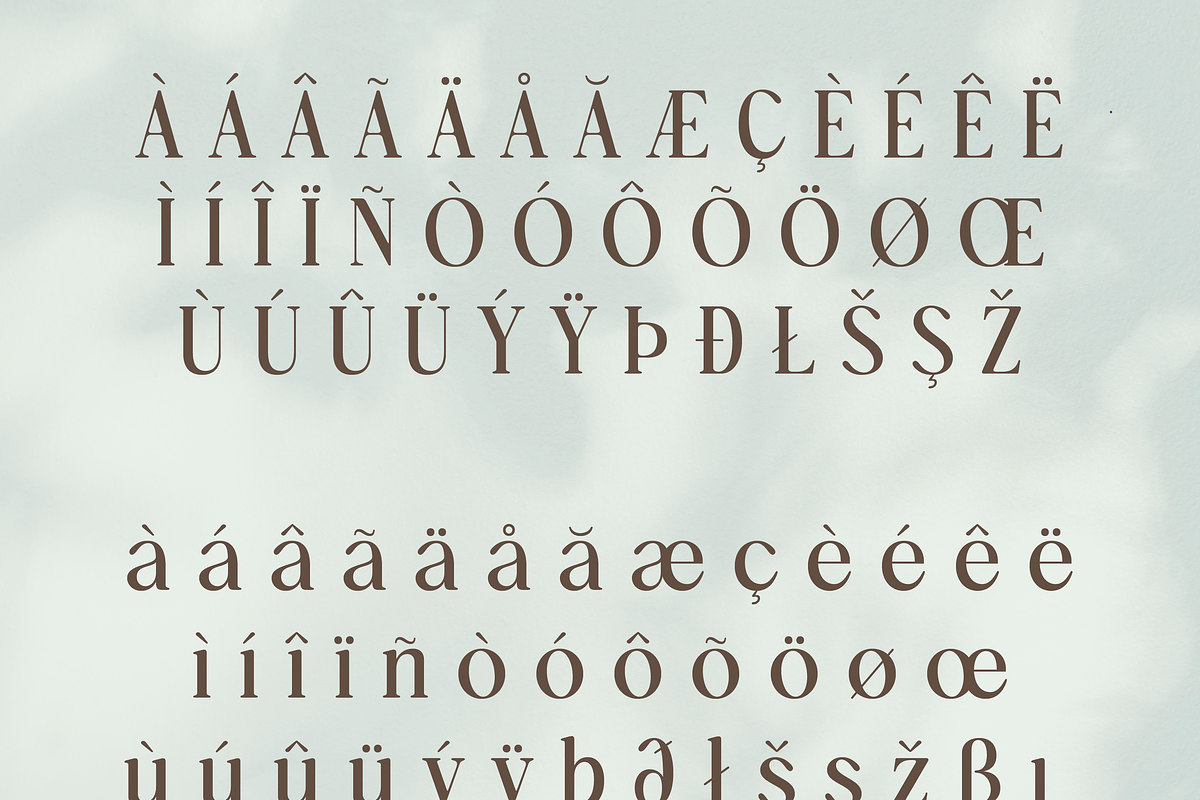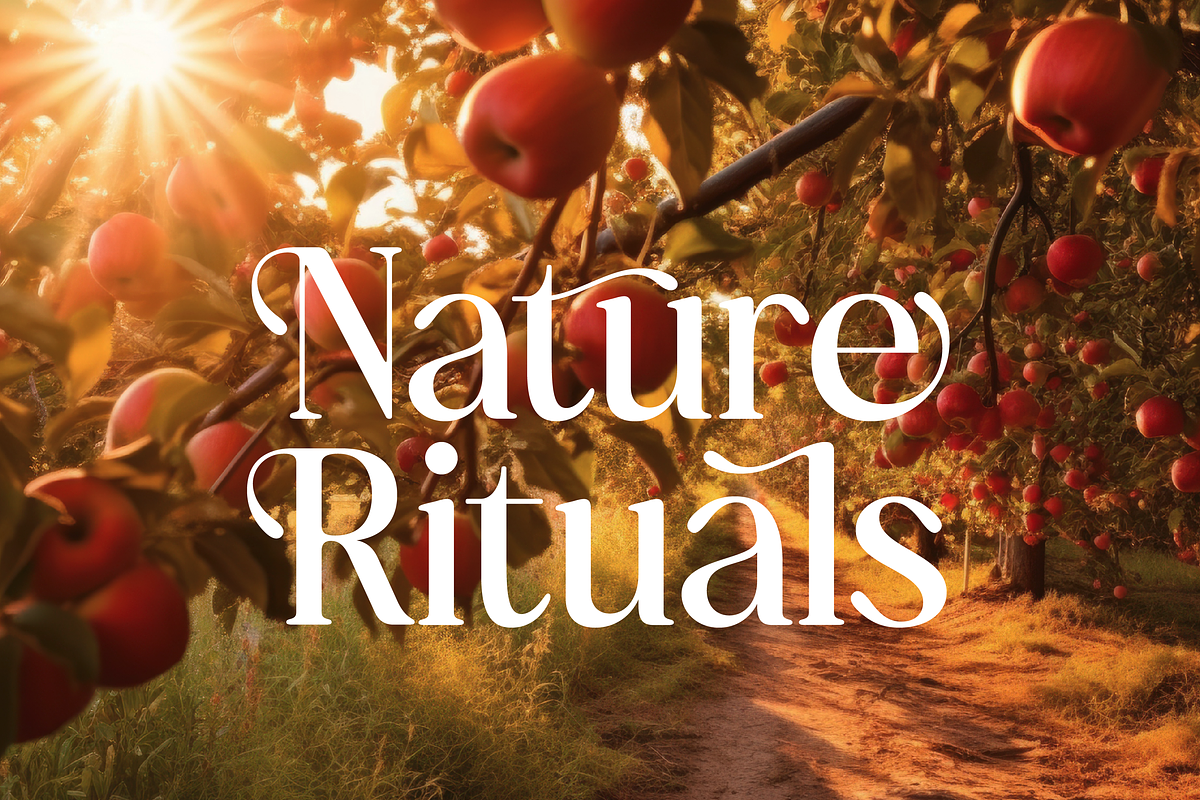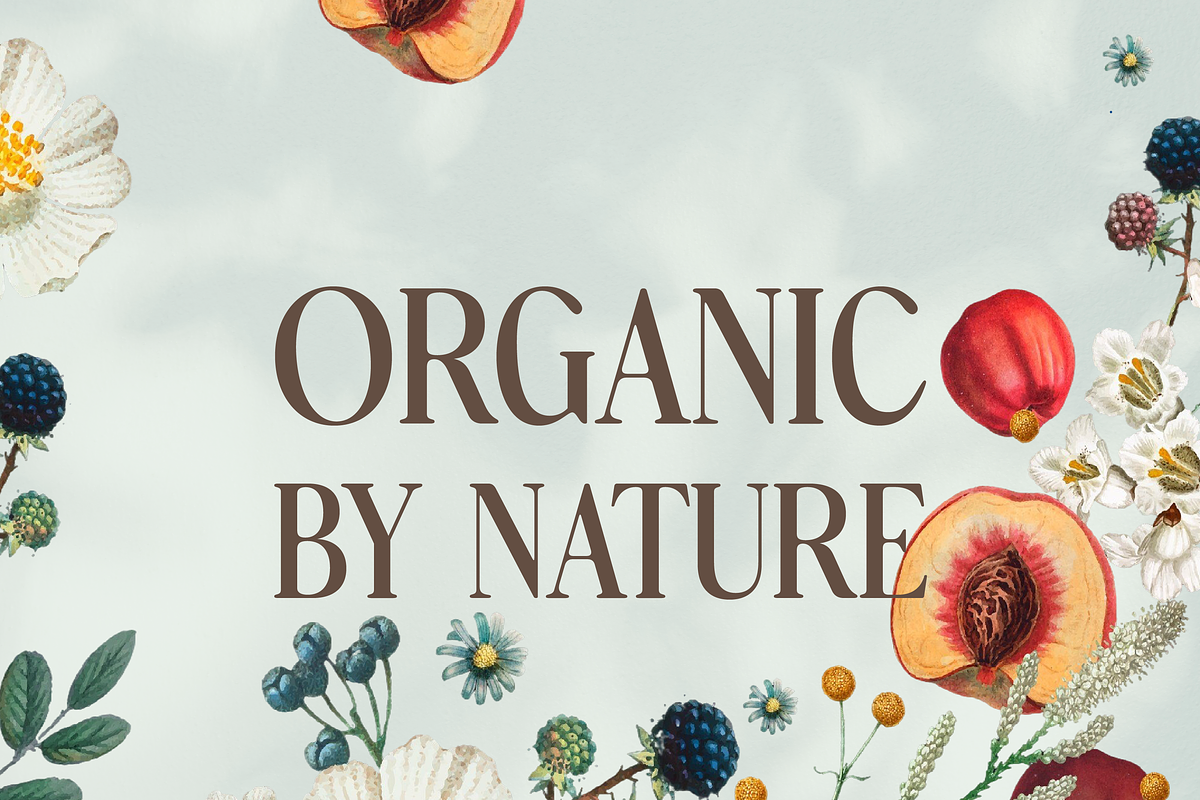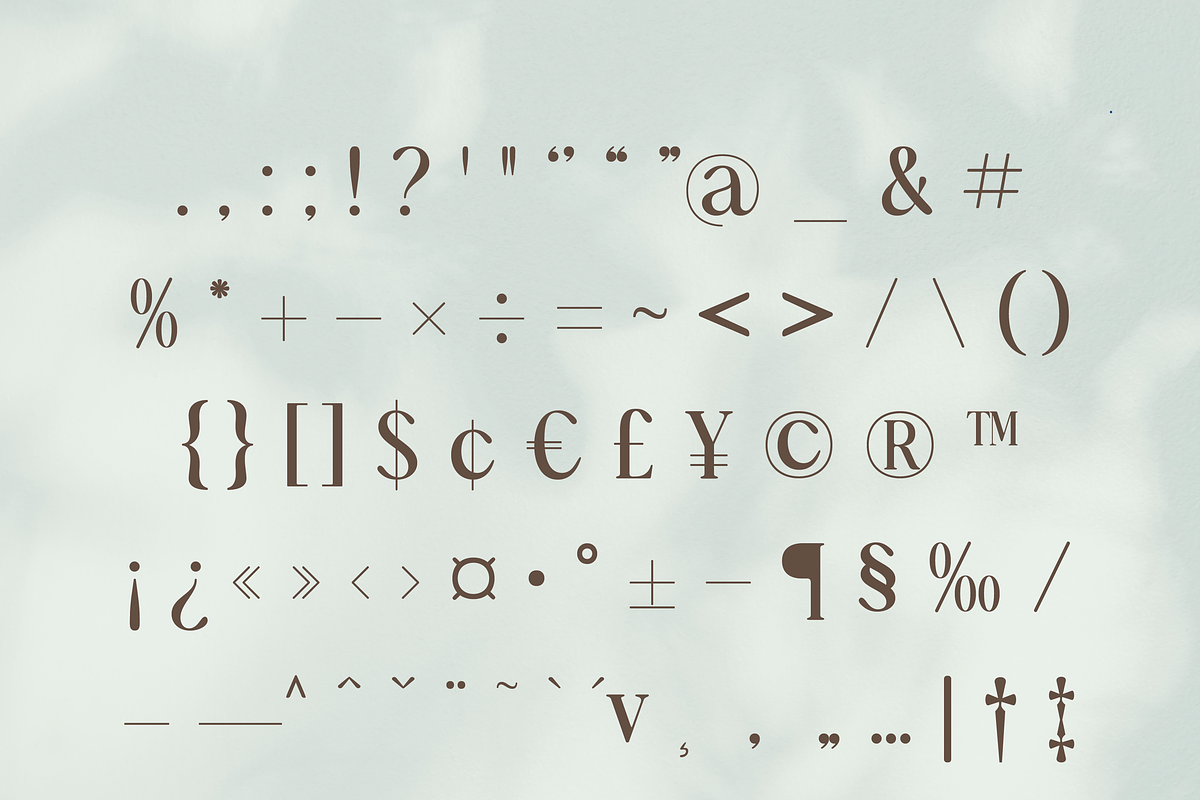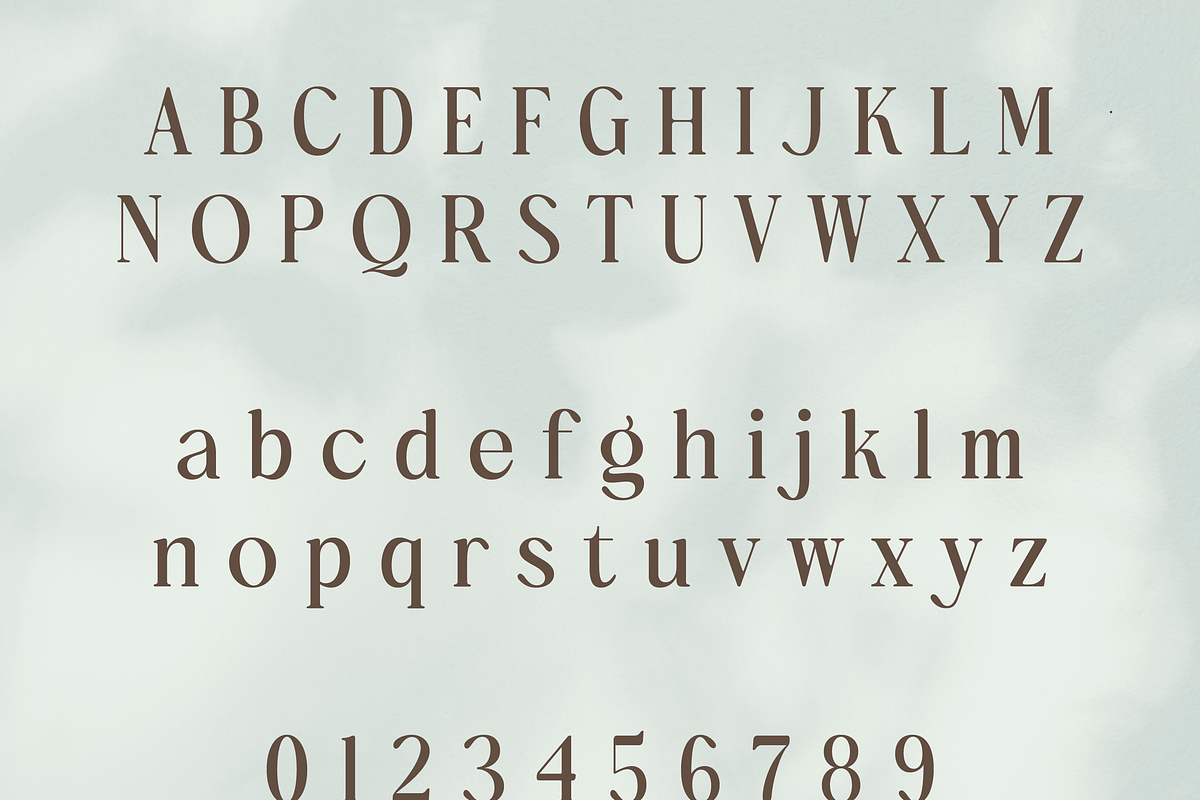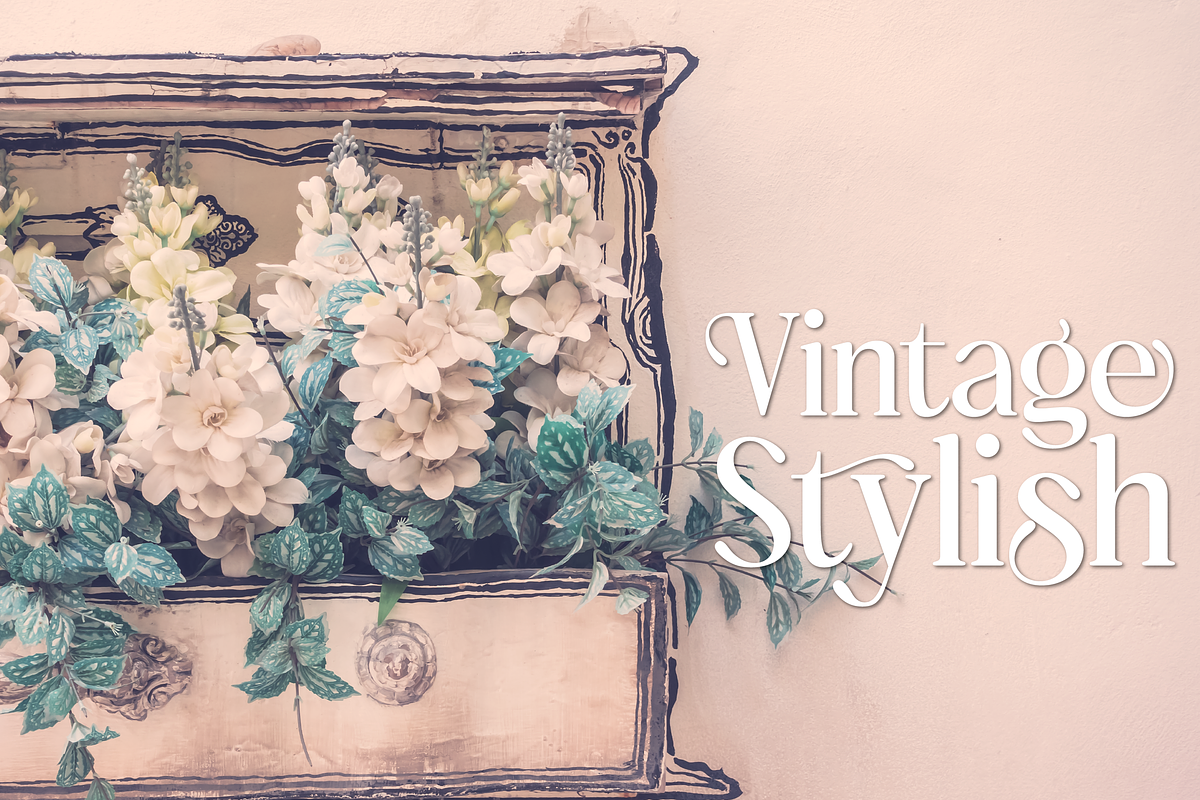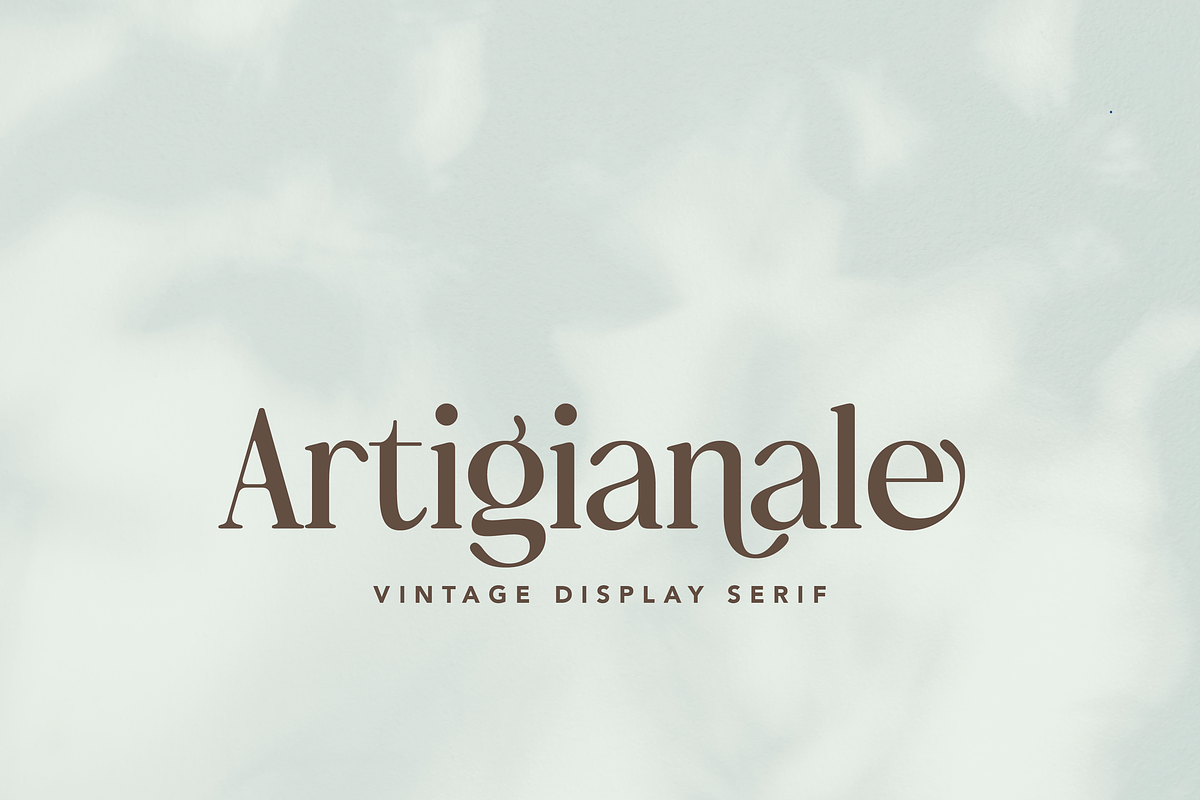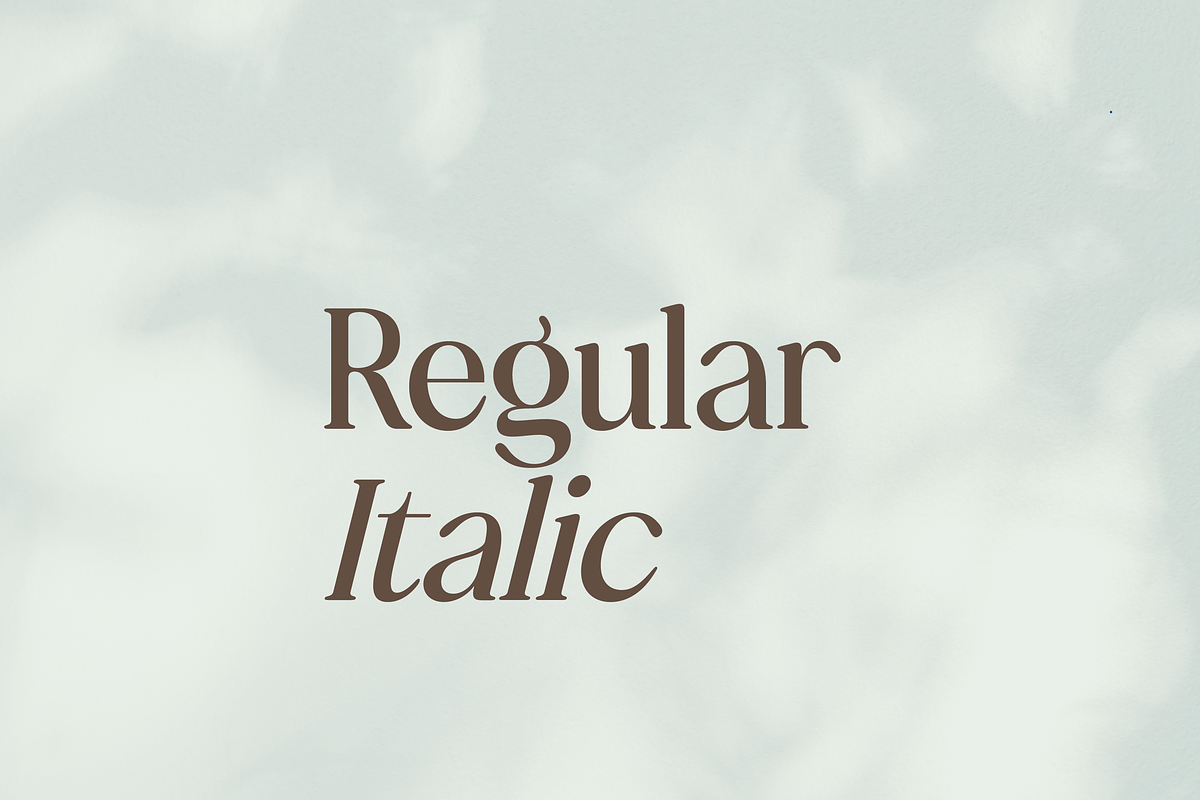
Artigianale Serif
Artigianale – A Timeless Vintage Serif with Handcrafted Flair
Artigianale is an elegant display serif that channels the spirit of artisanal craftsmanship and classic letterpress printing. Its gently bracketed serifs and subtle stroke contrast evoke old-world printmaking, while refined proportions and clean details keep the design feeling fresh and versatile.
With its blend of vintage charm and contemporary polish, Artigianale brings a handcrafted, heritage-inspired elegance to any design project.